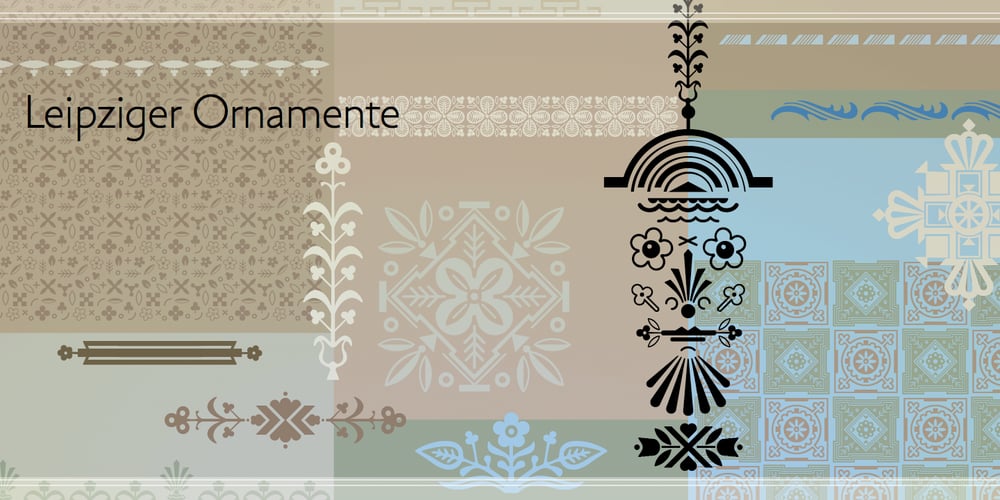
Leipziger Ornamente Font Family was designed by Andreas Stötzner and published by SIAS. Leipziger Ornamente contains 1 styles and family package options. Leipziger Ornamente is another font inspired by the architecture of my home city. I draw inspiration from various buildings of the 1920s to the 1950s. The majority of motives in this font is adapted from sgraffitto ornaments found on residental buildings in the northern borough of Gohlis. The Leipsic Ornaments offer a delicate range of both floral and geometric embellishment pieces, to create fresh and lively designs from. You can use this font for smart and cool borders, frames and textures as well as for sparkling headpieces or vibrant eye-catchers in magazines, brochures, leaflets or personal stationary. If you’re interested in more ornaments, see also my classical Andron Ornamente, the splendid Art nouveau Behrens Ornaments and the exciting Art Deco Arthur Ornaments.